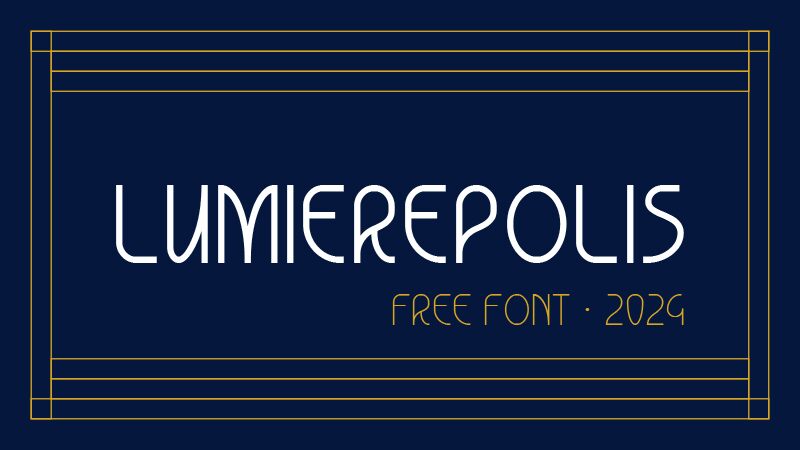
Lumierepolis font family is a free retro typeface by GGBotNet. Implementing an artistic blend of the old and the new, Lumierepolis combines influences of the iconic Art Deco movement with a modern touch. It is streamlined, minimalistic, and ideal for contemporary applications in fashion and branding. Lumierepolis evokes a sense of luxury and refinement making it always suitable for elegant editorial design work.
Experiment with Lumierepolis in magazine or newspaper design, on posters, in invitations typography, on business cards, or other branding material. Explore its possibilities in fashion apparel branding in general, on labels of fashion items such as dressing gowns, bathing suits, and suits as well as on tailored uniform suits. Present Lumierepolis in its grandeur on a fine perfume bottle, watch, or jewelry cover design. It would also look fancy on the facade of a retail fashion outlet.